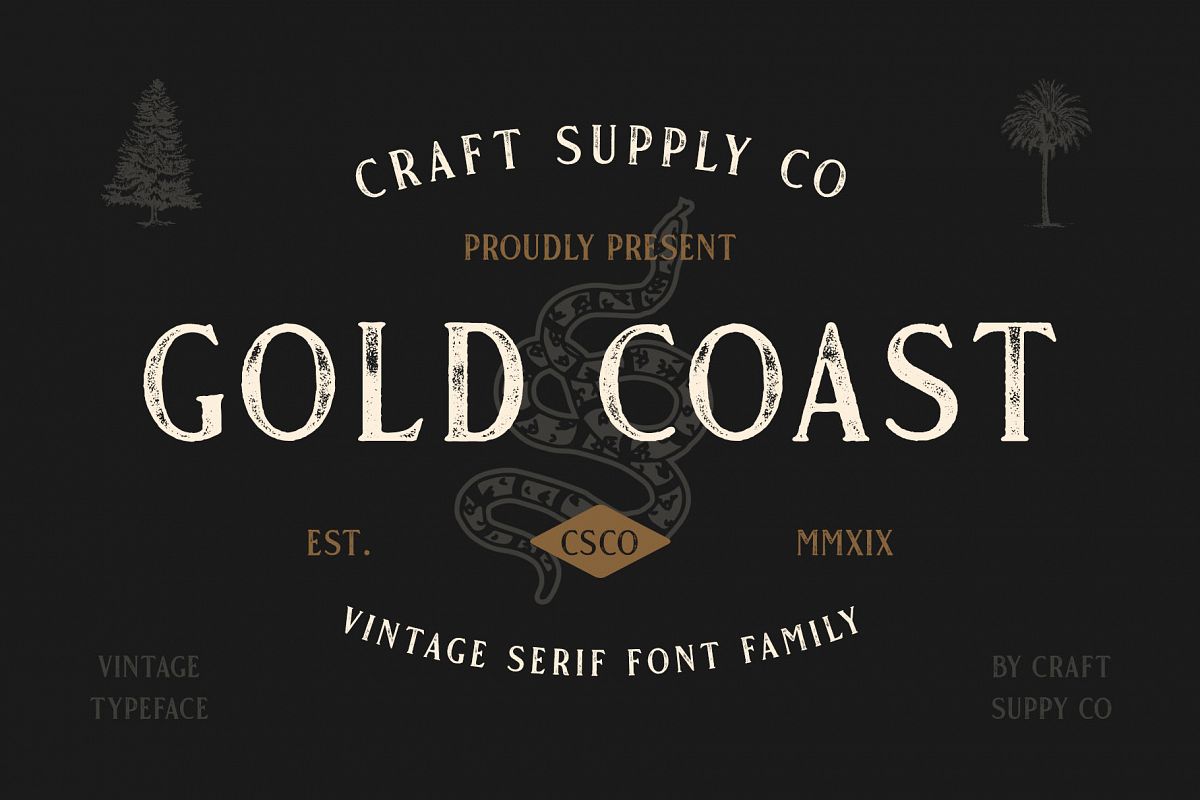
Gold Coast - Vintage Serif Bonus Logo
Gold Coast Regular
Gold Coast Outline
Gold Coast Rough
Gold Coast Stamp
Introducing Gold Coast - Vintage Serif Font Family + Extras includes 4 Style Fonts. It can be used to create almost all types of design projects like print materials. Just use your imagination and some graphic design set in Extras, your project will become more alive and look great than ever with one of the Gold Coast Font.
1. Gold Coast Regular
2. Gold Coast Outline
3. Gold Coast Rough
4. Gold Coast Stamp
1. All Caps Fonts
2. Standard Ligatures
4. Accents (Multilingual characters) (AÀÁÂÃÄÅCÇDÐEÈÉÊËIÌÍÎÏNÑOØÒÓÔÕÖUÙÜÚÛWYÝŸỲŸÆŒßÞ)